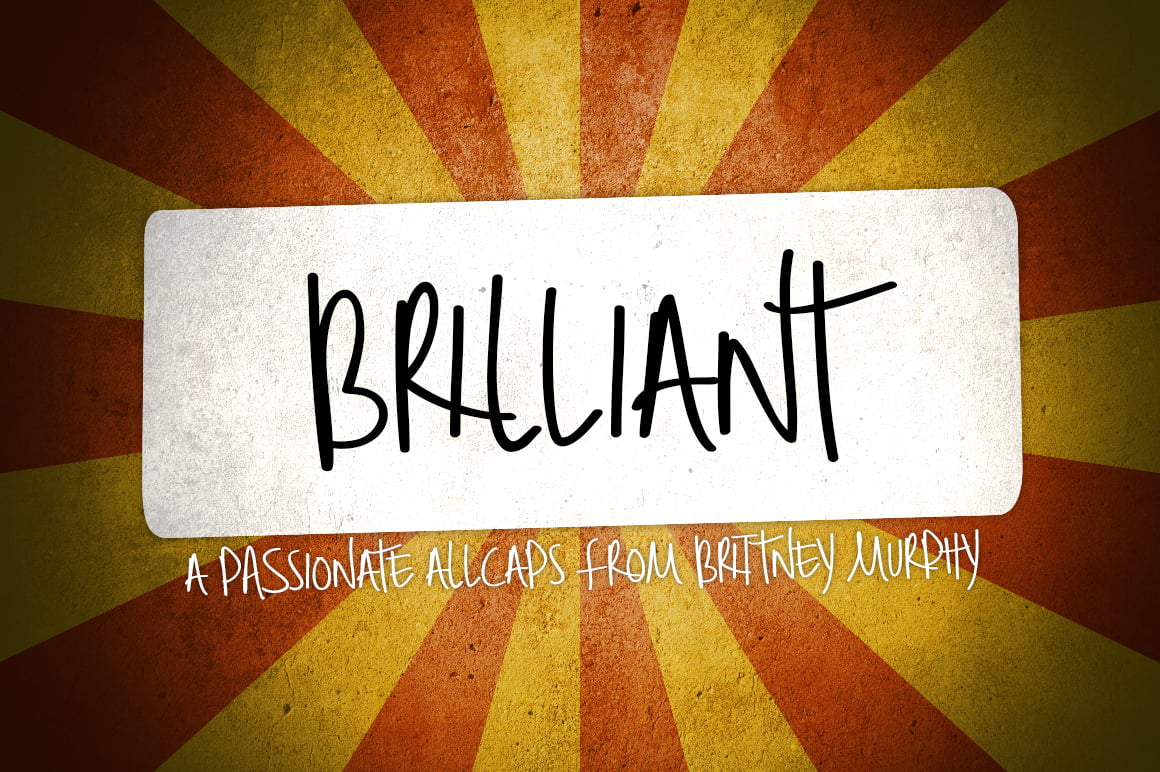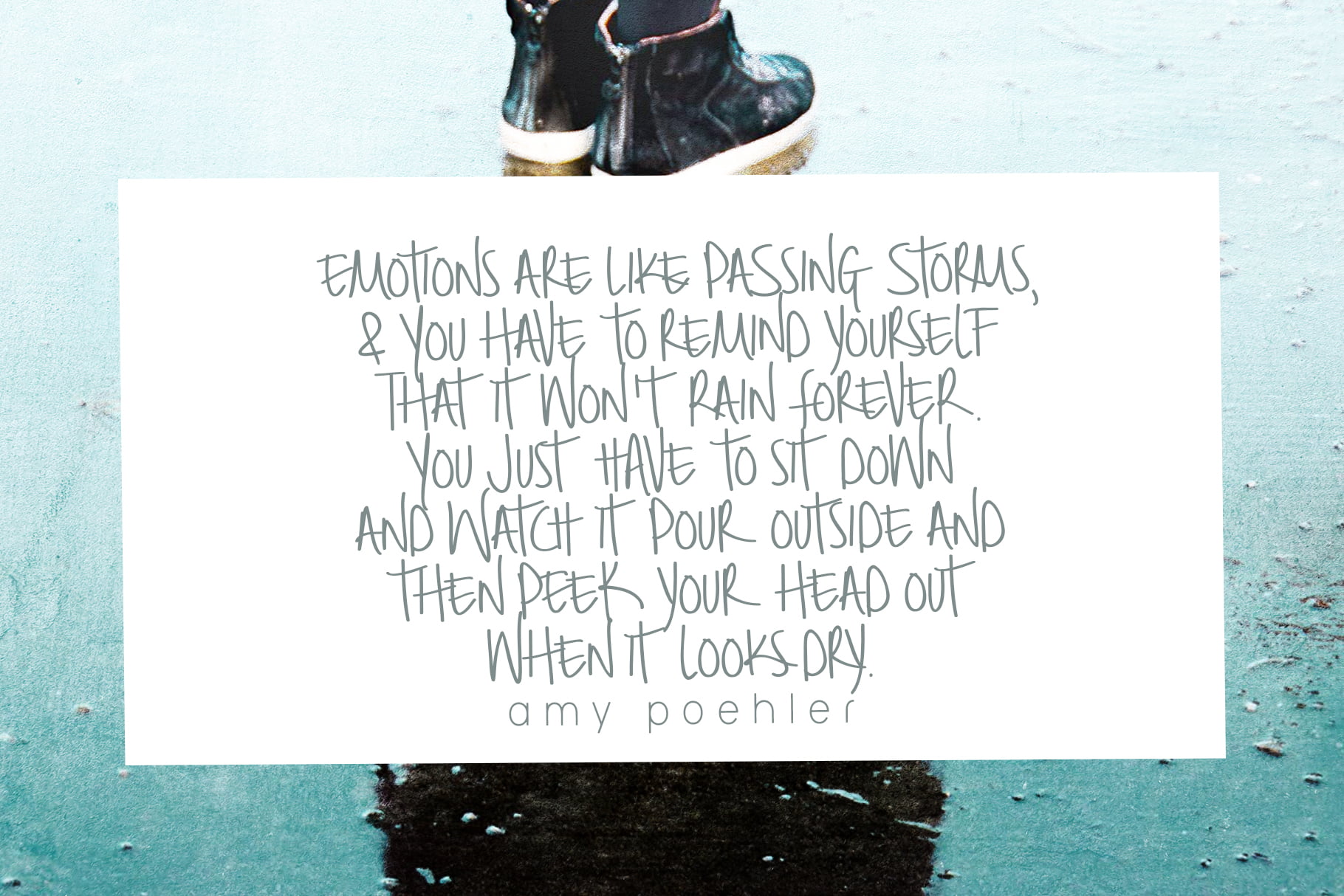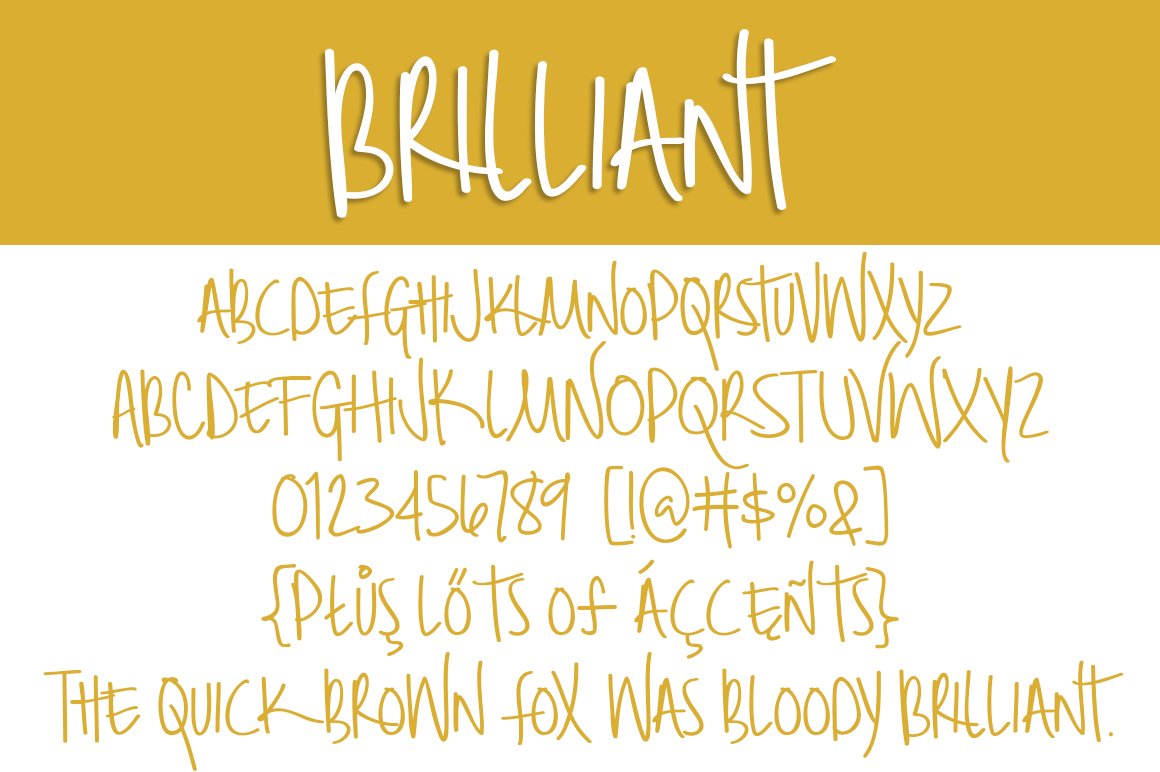
The Brilliant Font is a Passionate all-caps sans serif font created in 2015 by Brittney Murphy Design. With 350 characters, Brilliant supports most latin based languages. Looking for something a little messy and still very readable for your graphic design project, Brilliant should work well for you.